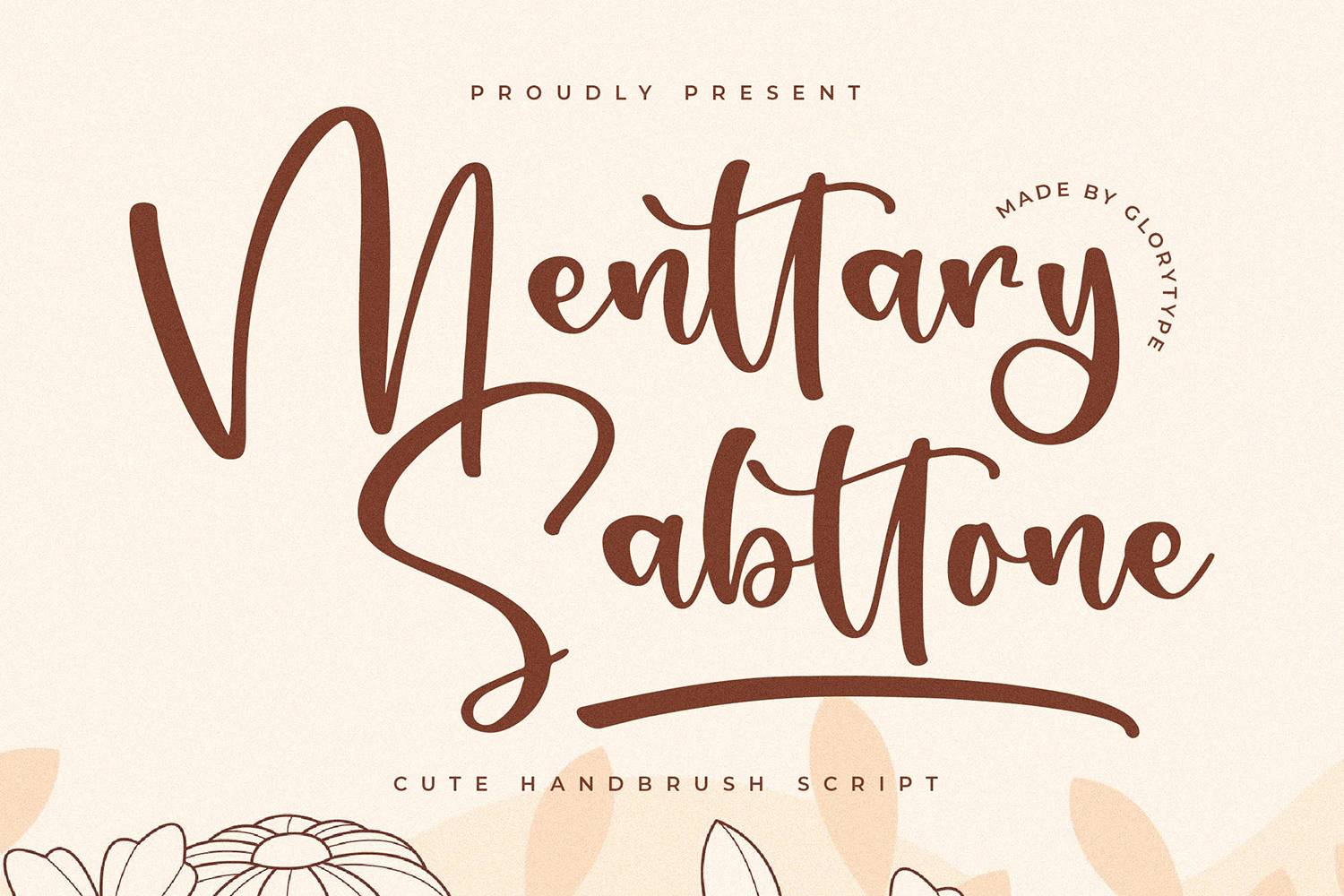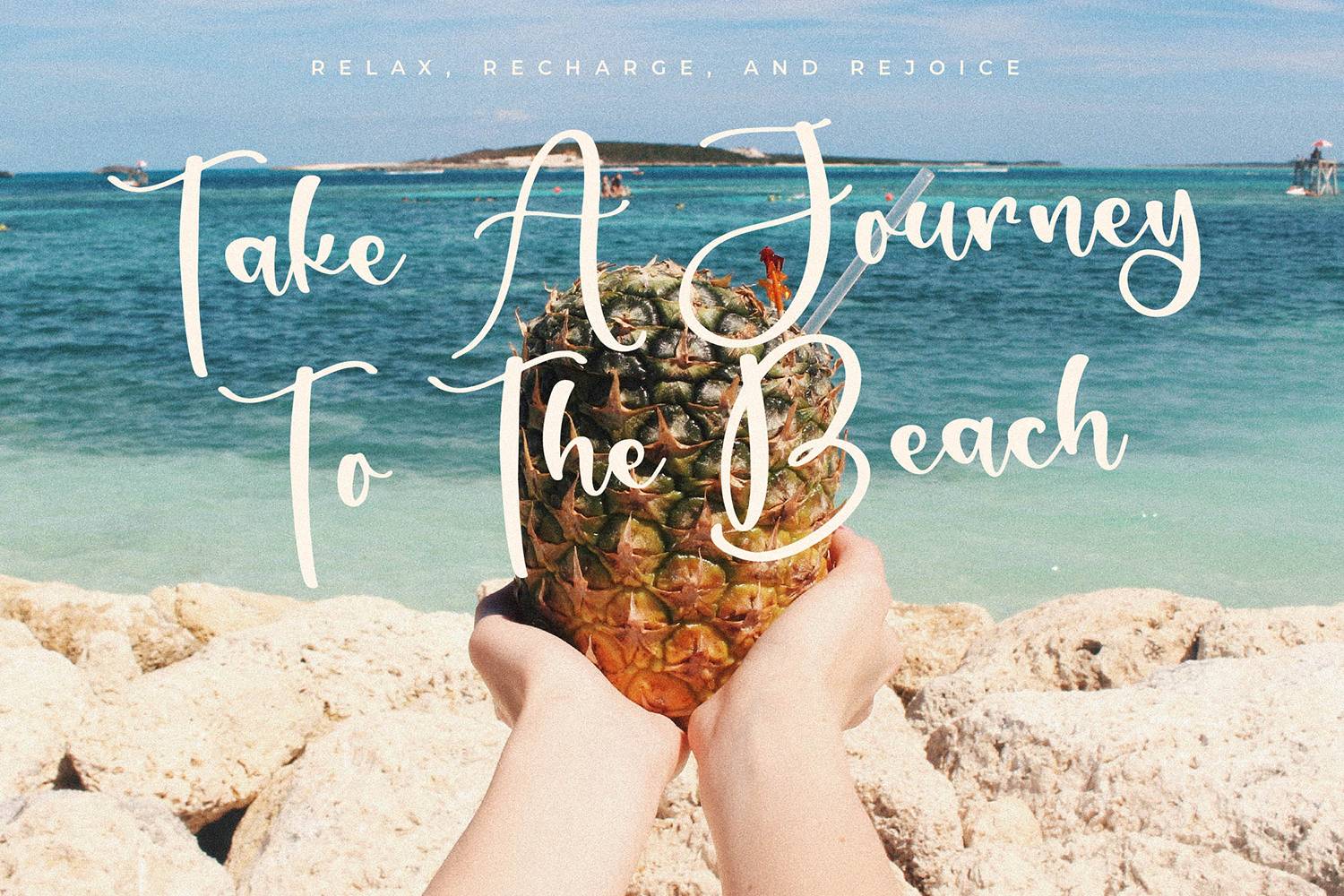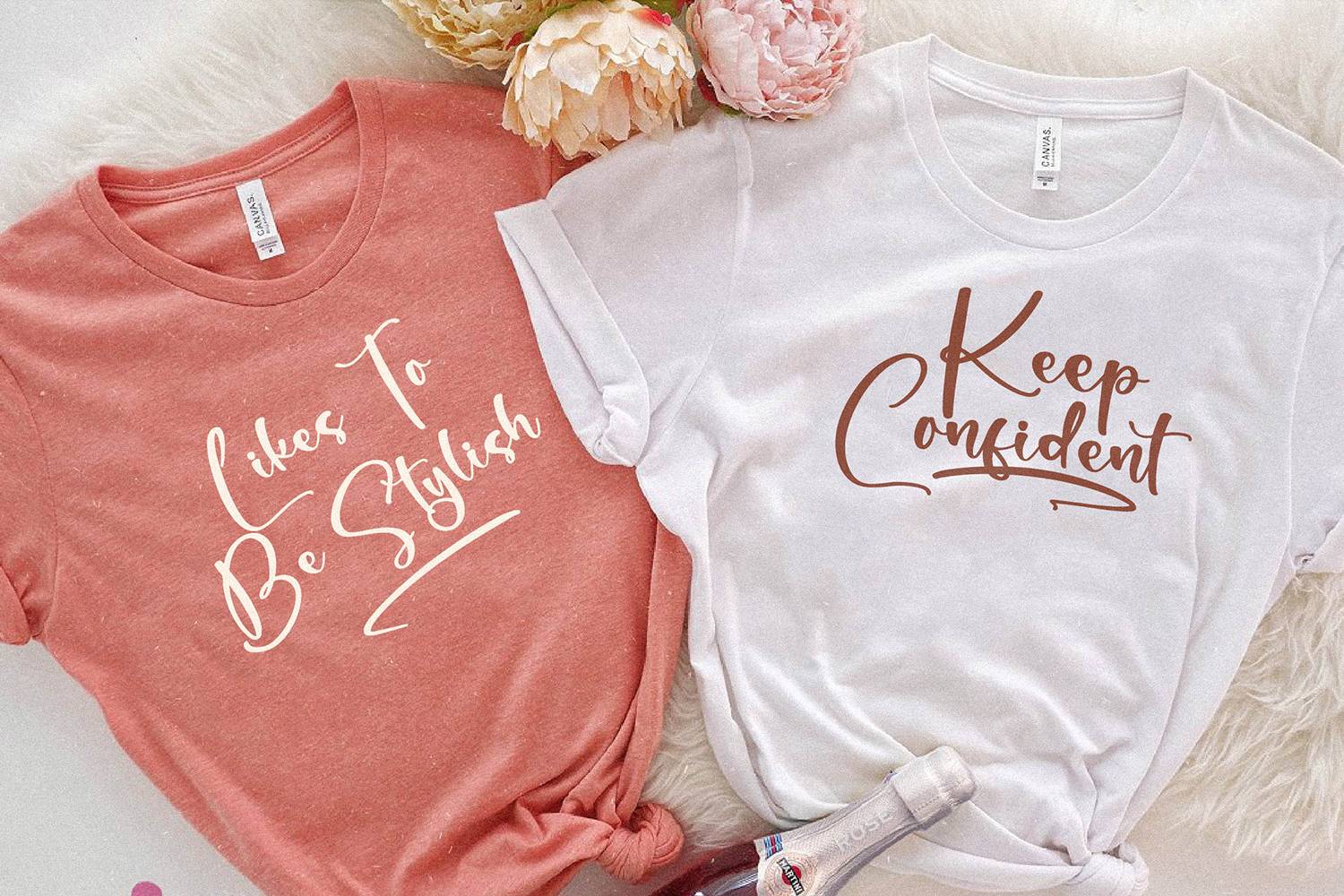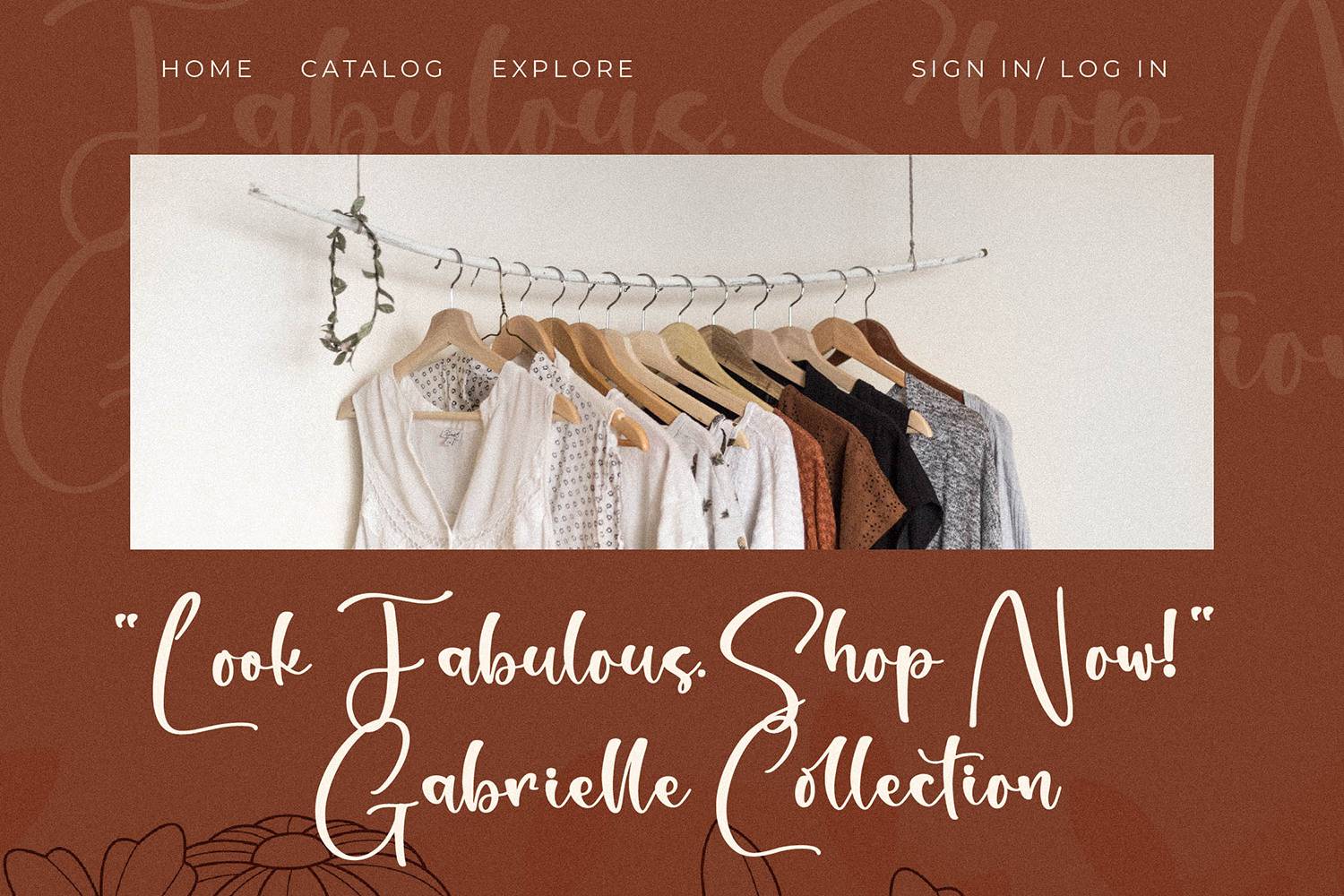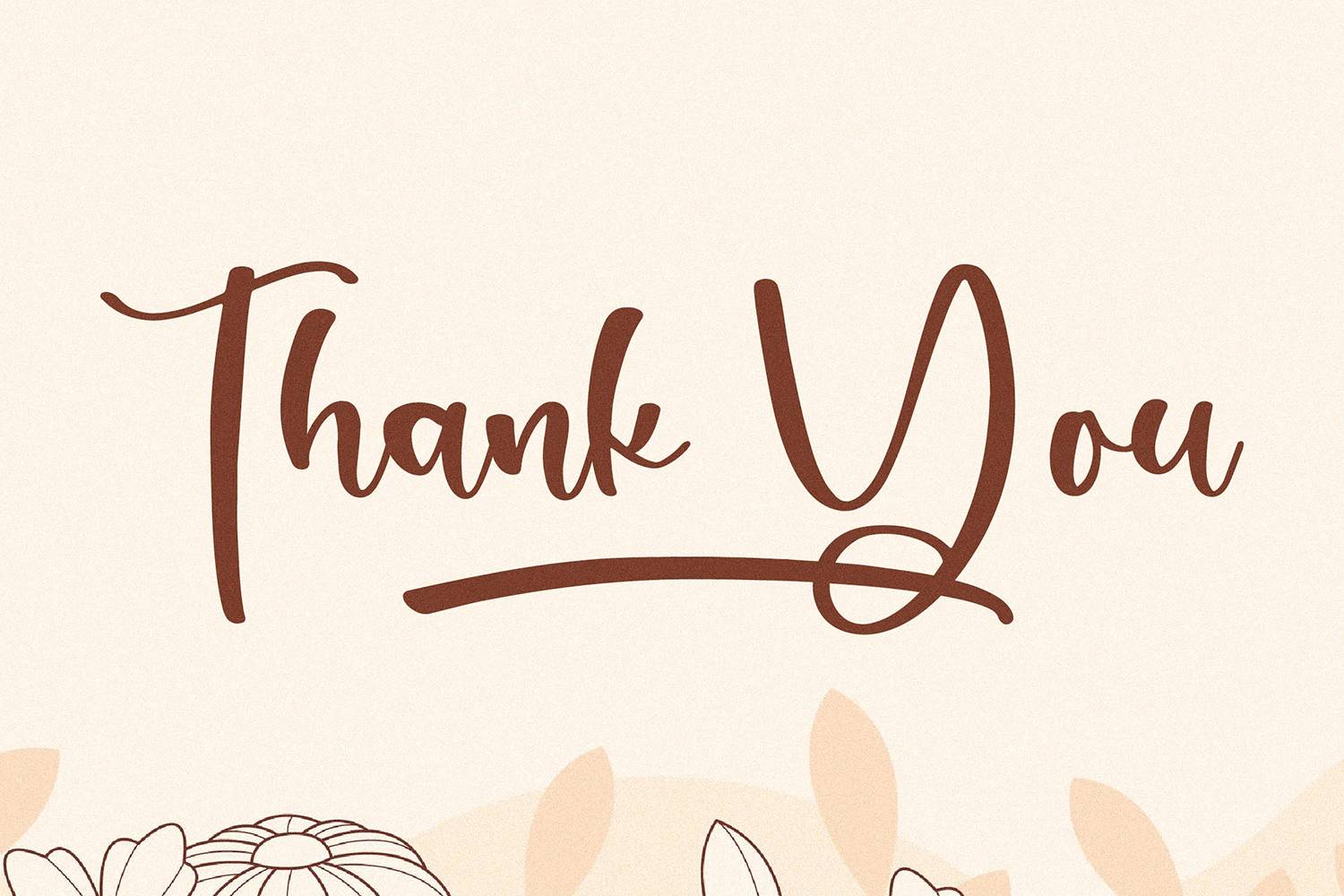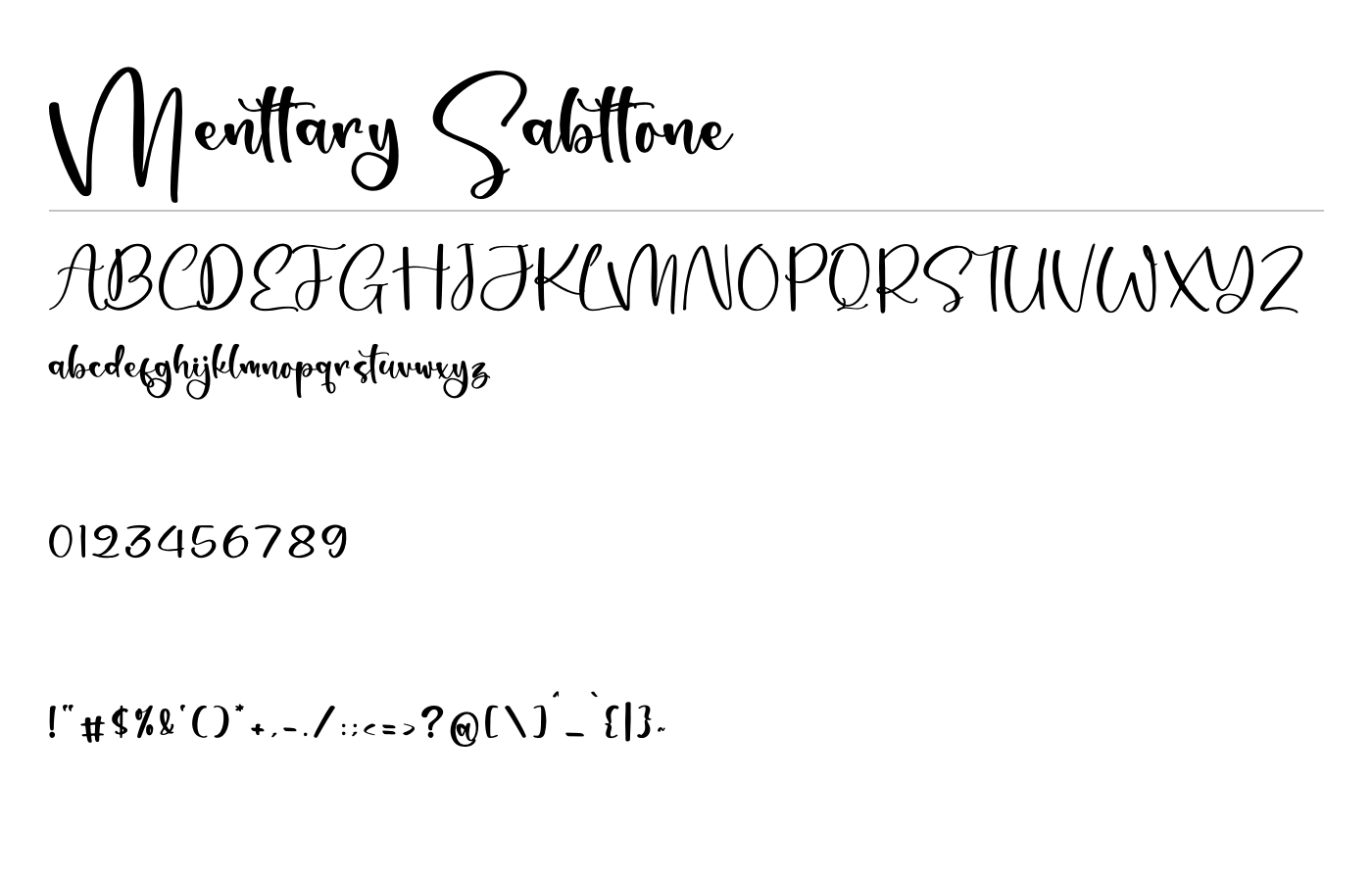
Menttary Sabttone is a playful and elegant script font with a flowing, handwritten style characterized by varying stroke widths that add a lively, dynamic feel. Its mix of tall, slender uppercase letters and bold, charming lowercase characters makes it perfect for creative projects like invitations, branding, and social media, where a personal and artistic touch is desired. This font stands out with its unique letterforms and casual yet sophisticated personality, ideal for capturing attention in headlines and decorative use.
Menttary Sabttone Font
About Menttary Sabttone Font